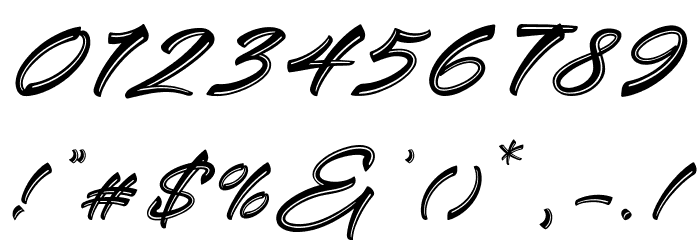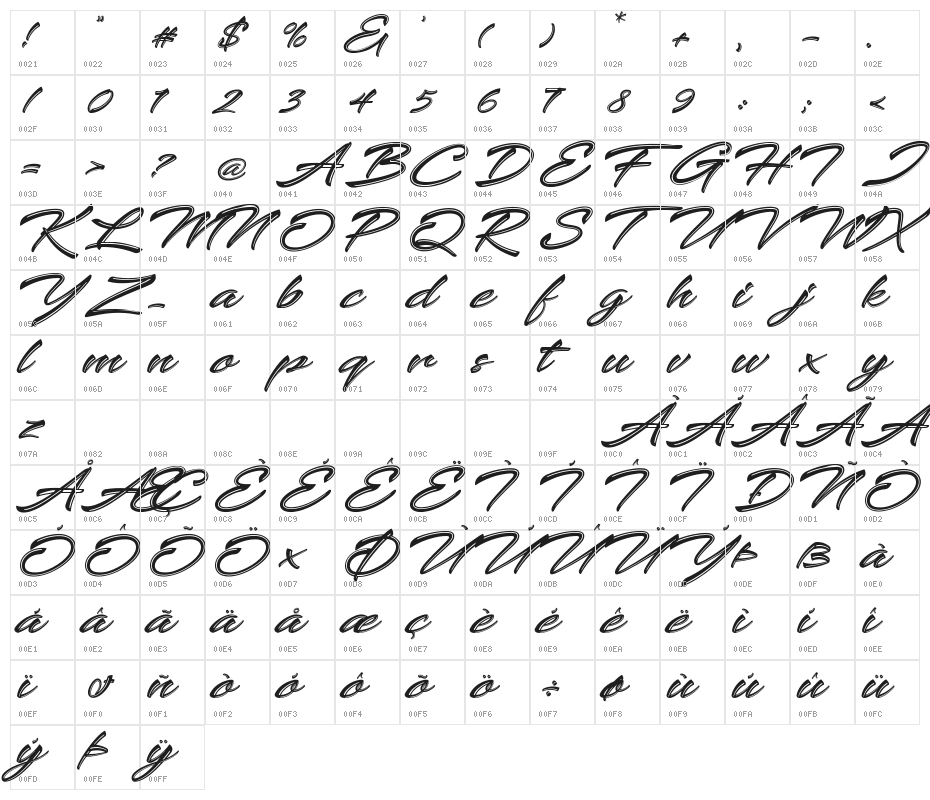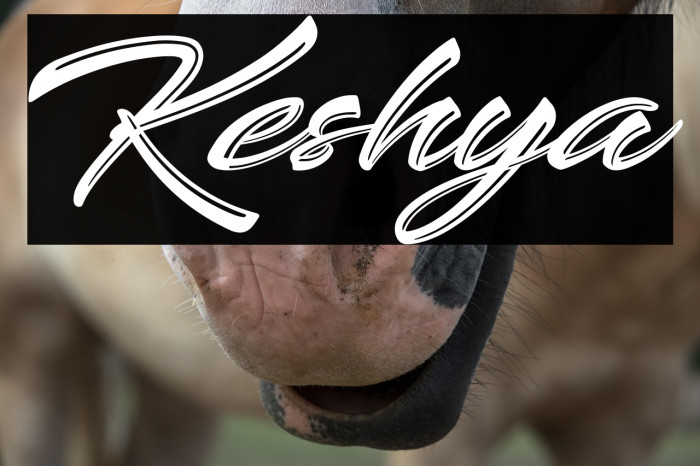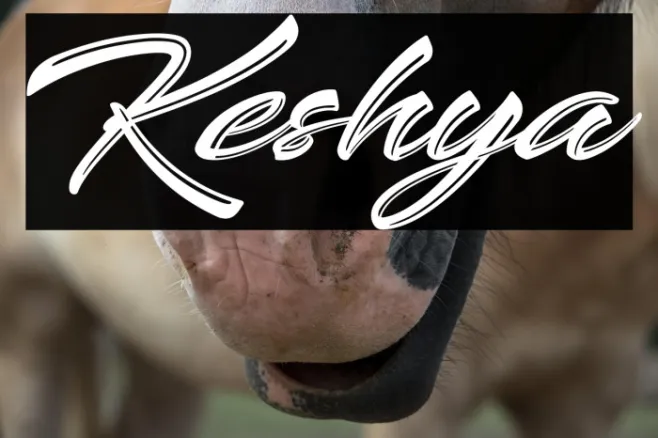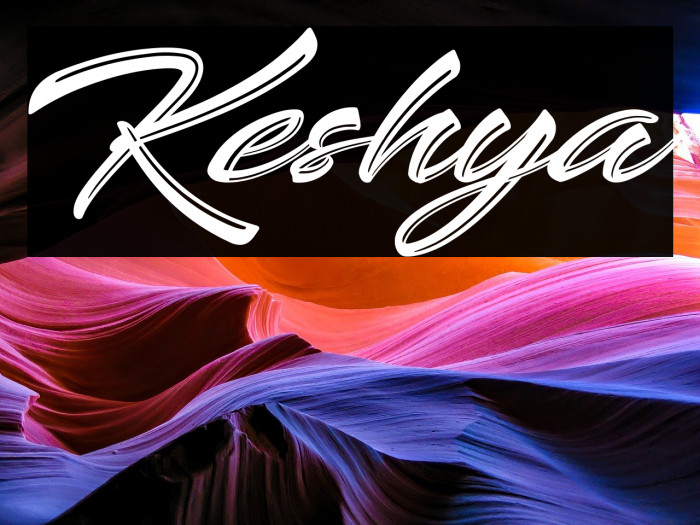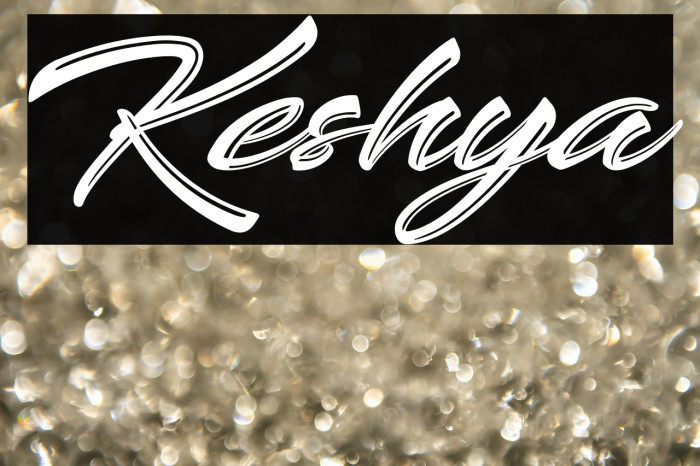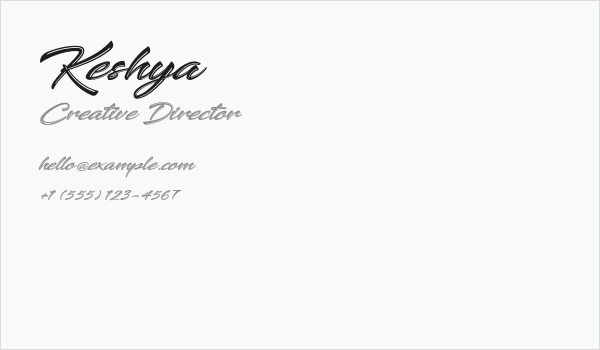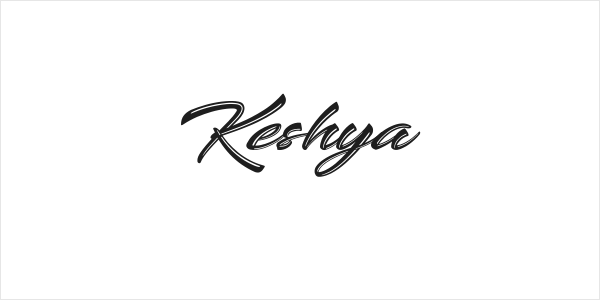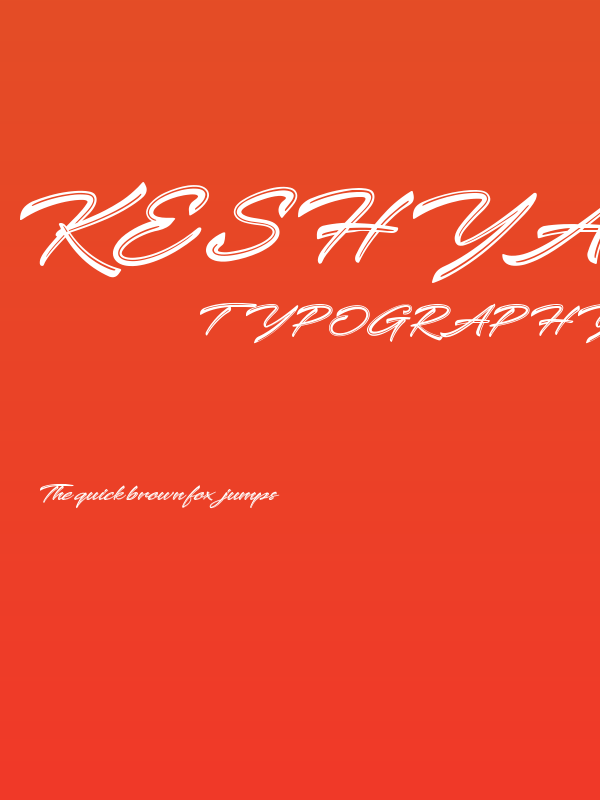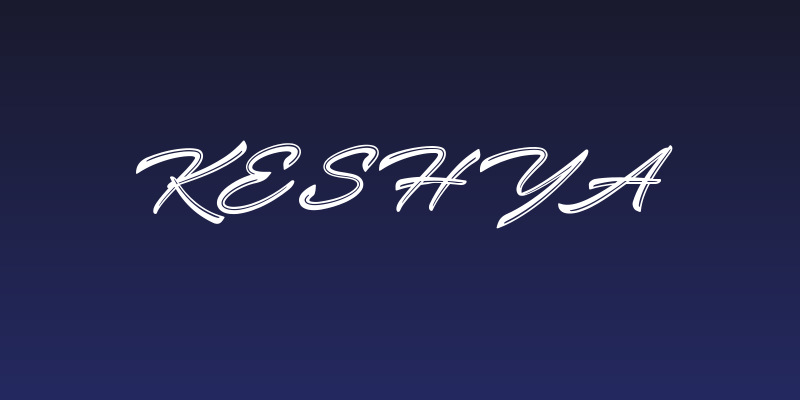
Keshya Font
Keshya Description
This font features an elegant, flowing script style that mimics the fluidity of handwriting. The characters are interconnected, with smooth curves and a slight slant, giving it a dynamic and sophisticated appearance. The uppercase letters are bold and prominent, while the lowercase letters maintain a consistent flow, enhancing readability. The numerals and special characters are designed to match the overall aesthetic, ensuring a cohesive look. This font is ideal for projects that require a personal touch, such as invitations, greeting cards, and branding materials.
| Overall Style | Elegant, Sophisticated |
| Use Case | Headlines, Invitations, Branding |
| Proposed Projects | Ideal for wedding invitations, personal branding, greeting cards, and elegant signage. |